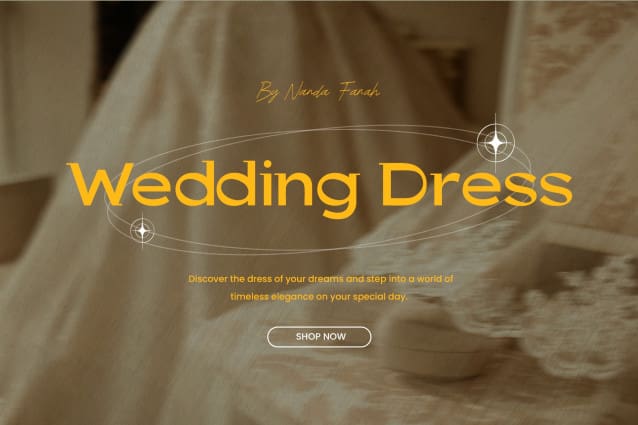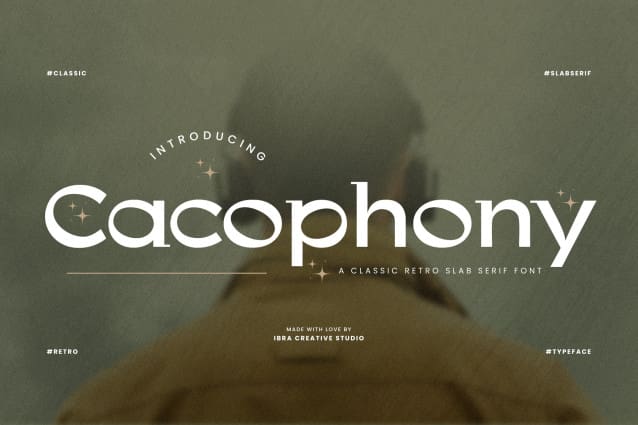
Cacophony Font
Cacophony Font is a timeless embodiment of the classic retro slab serif font style, exuding a harmonious blend of nostalgia and contemporary design. Its bold, sturdy letterforms are characterized by thick, consistent strokes and squared-off serifs, evoking a sense of robustness and confidence reminiscent of mid-20th century typography. Cacophony’s clean lines and well-defined geometric proportions lend it a distinct and enduring charm, making it a standout choice for projects seeking to seamlessly merge vintage aesthetics with a modern twist.